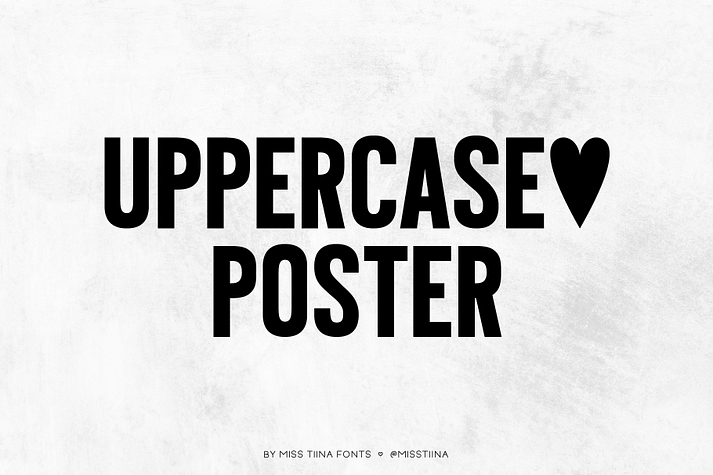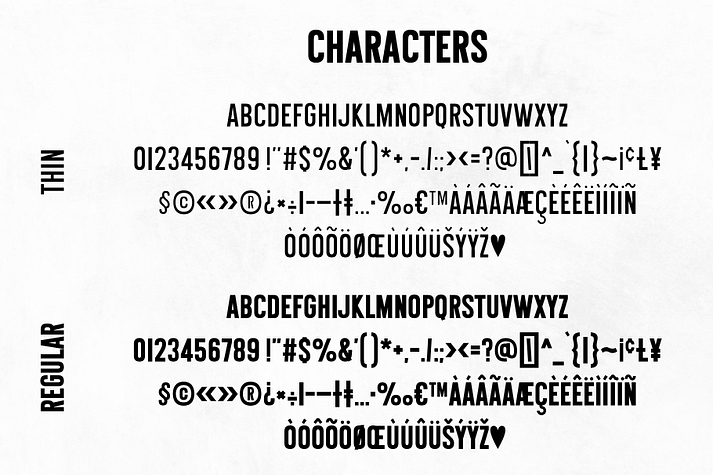
MTF UPPERCASE POSTER
MTF Uppercase Poster is a display sans font family. This typeface has two styles and was published by Miss Tiina Fonts .
Uppercase Poster is a neat and casual sans display font. Incredibly versatile, this font will look great in a wide variety of contexts!